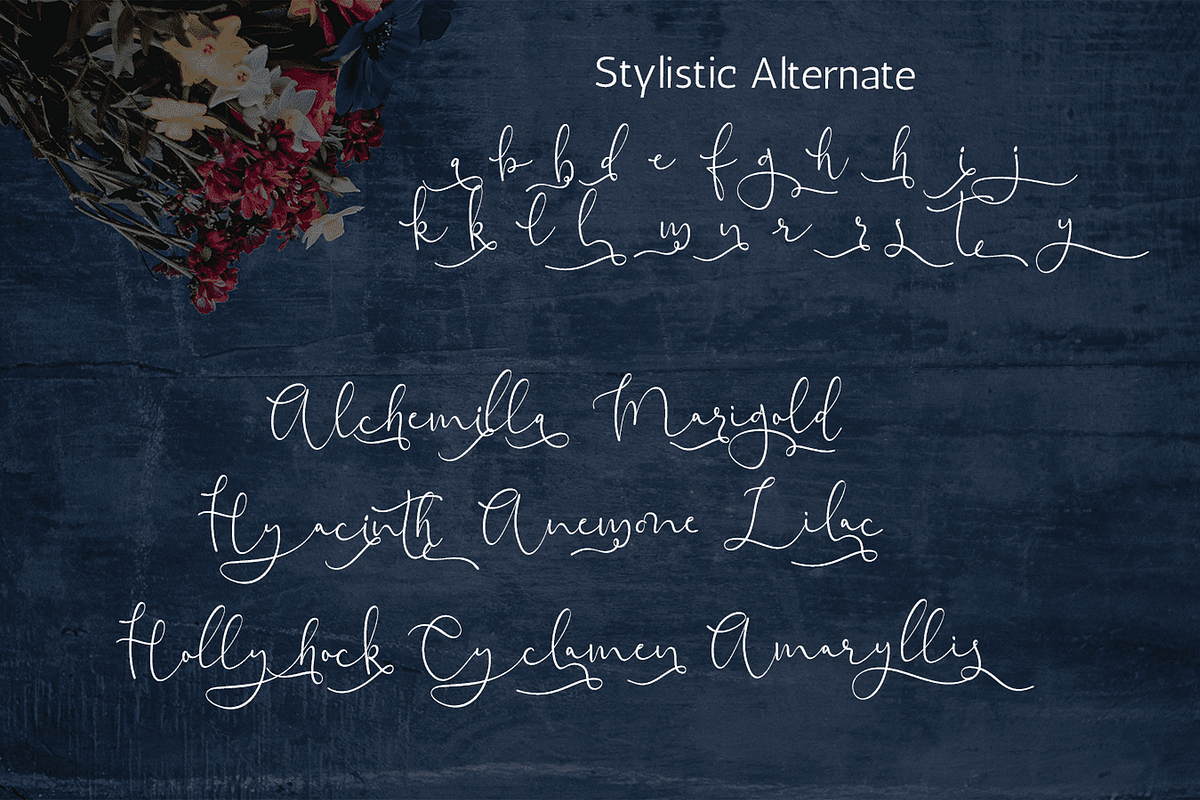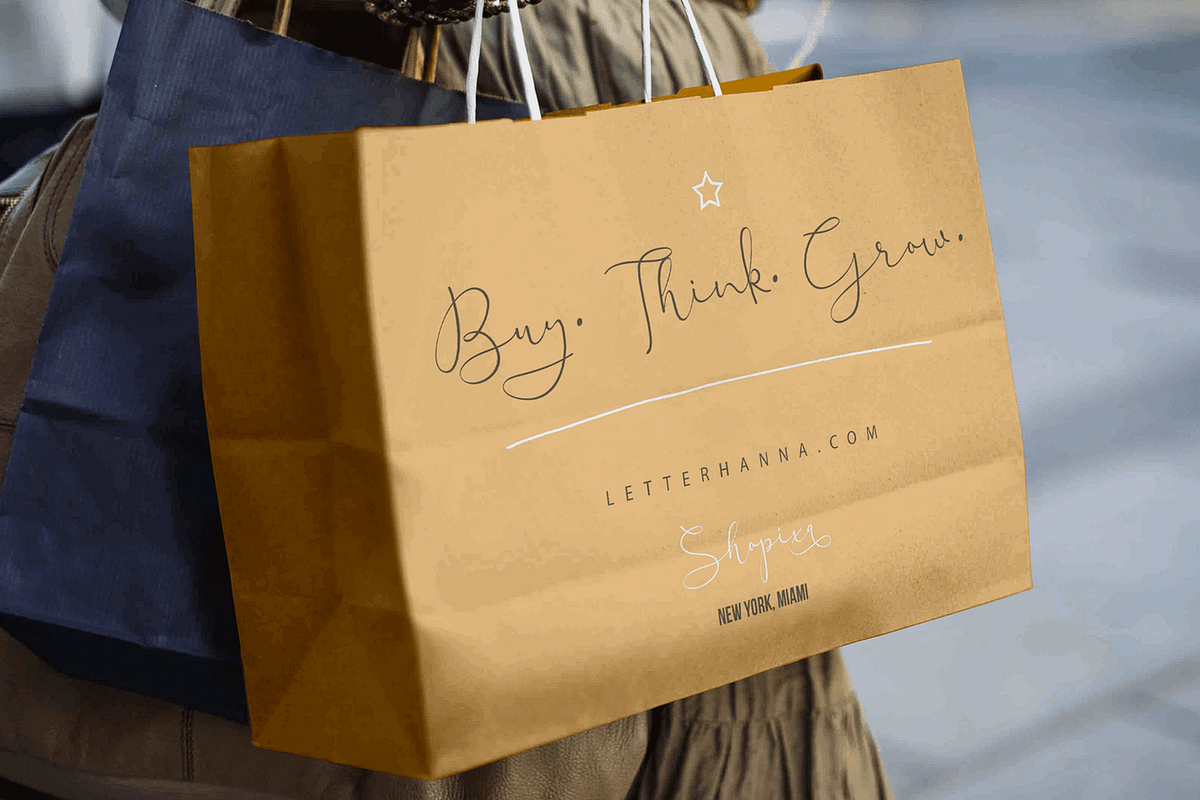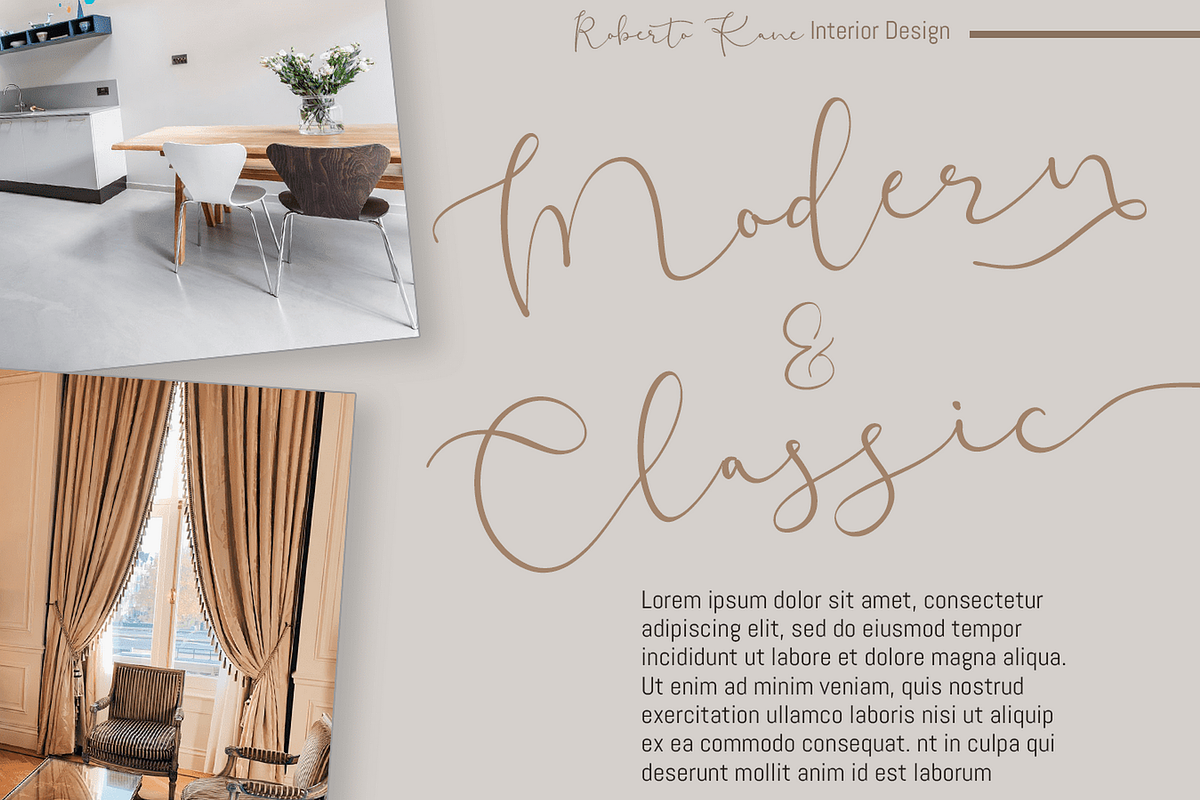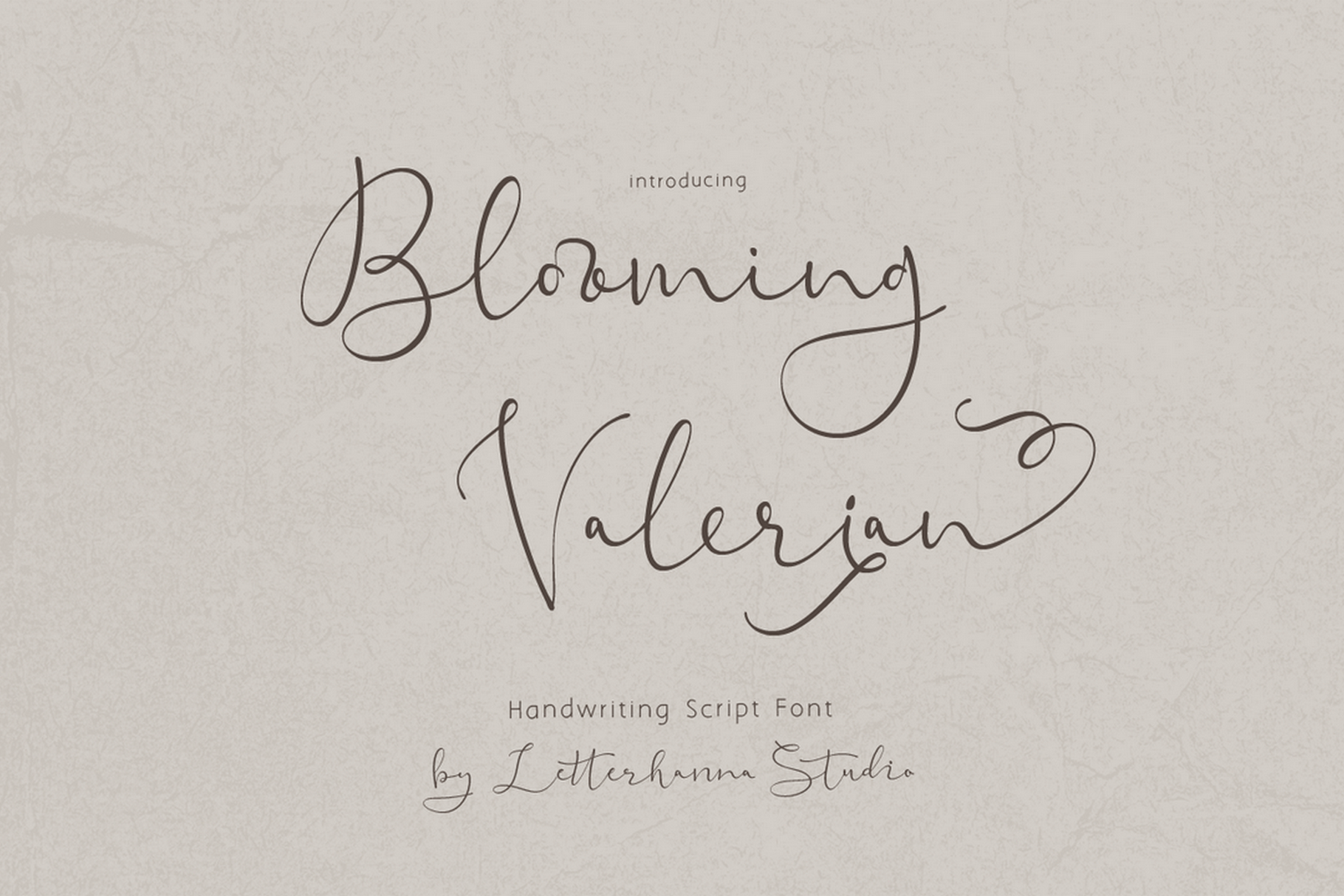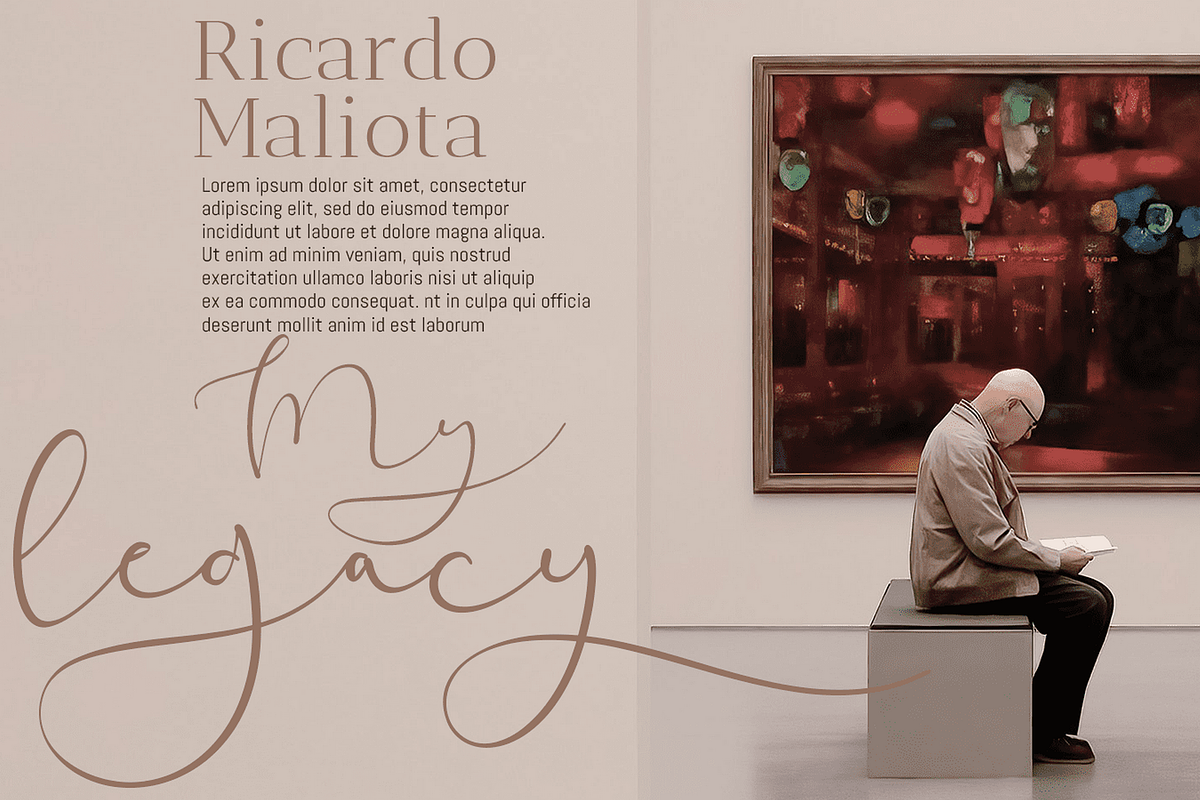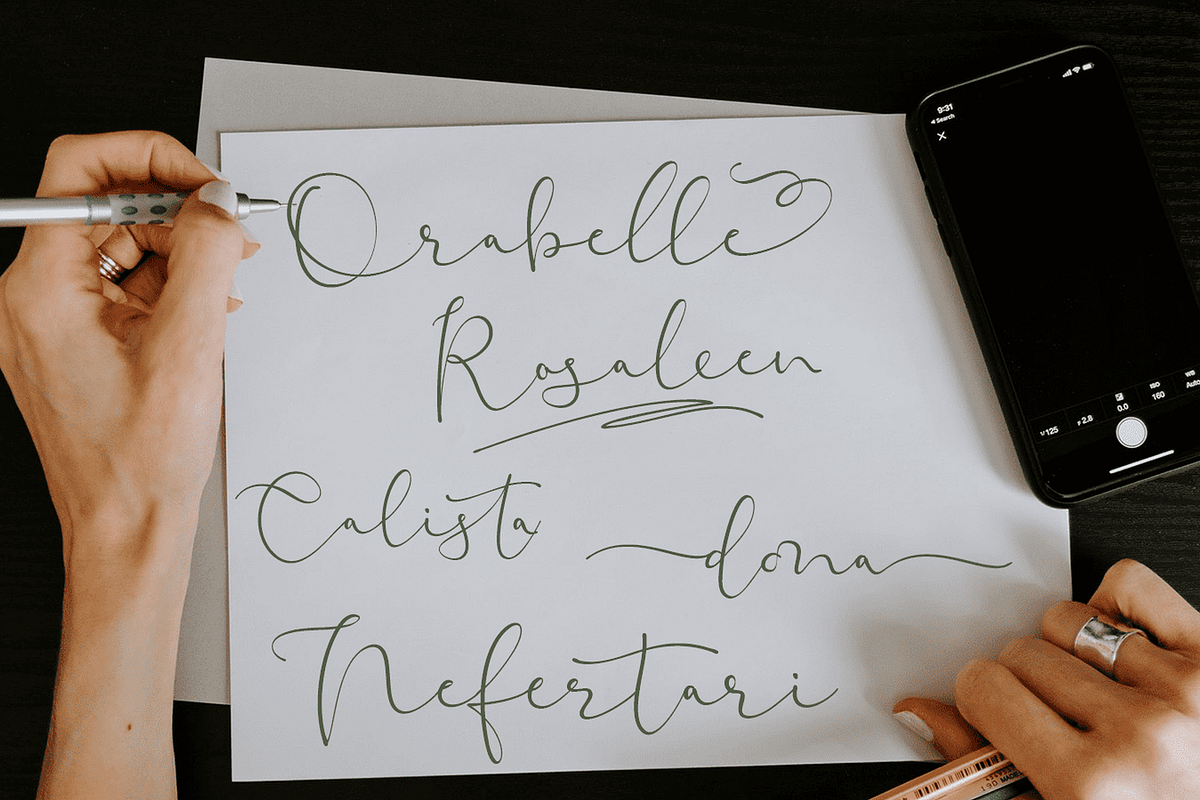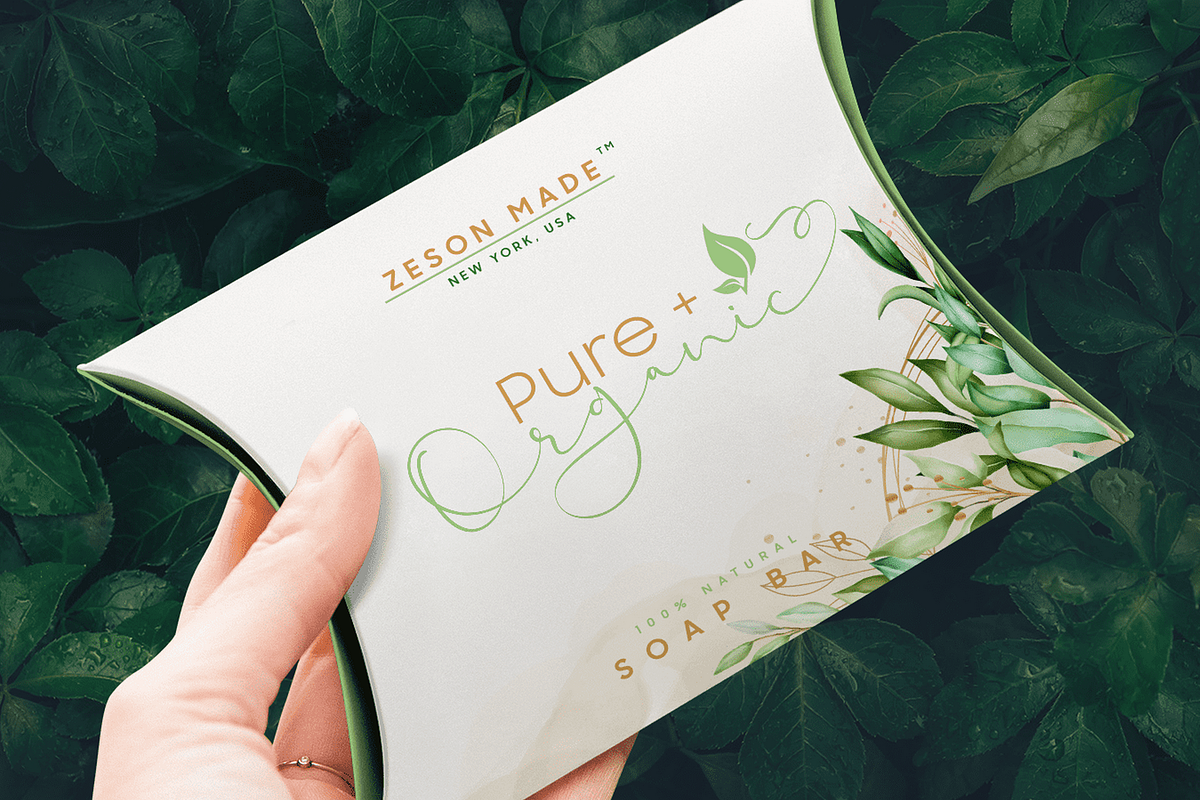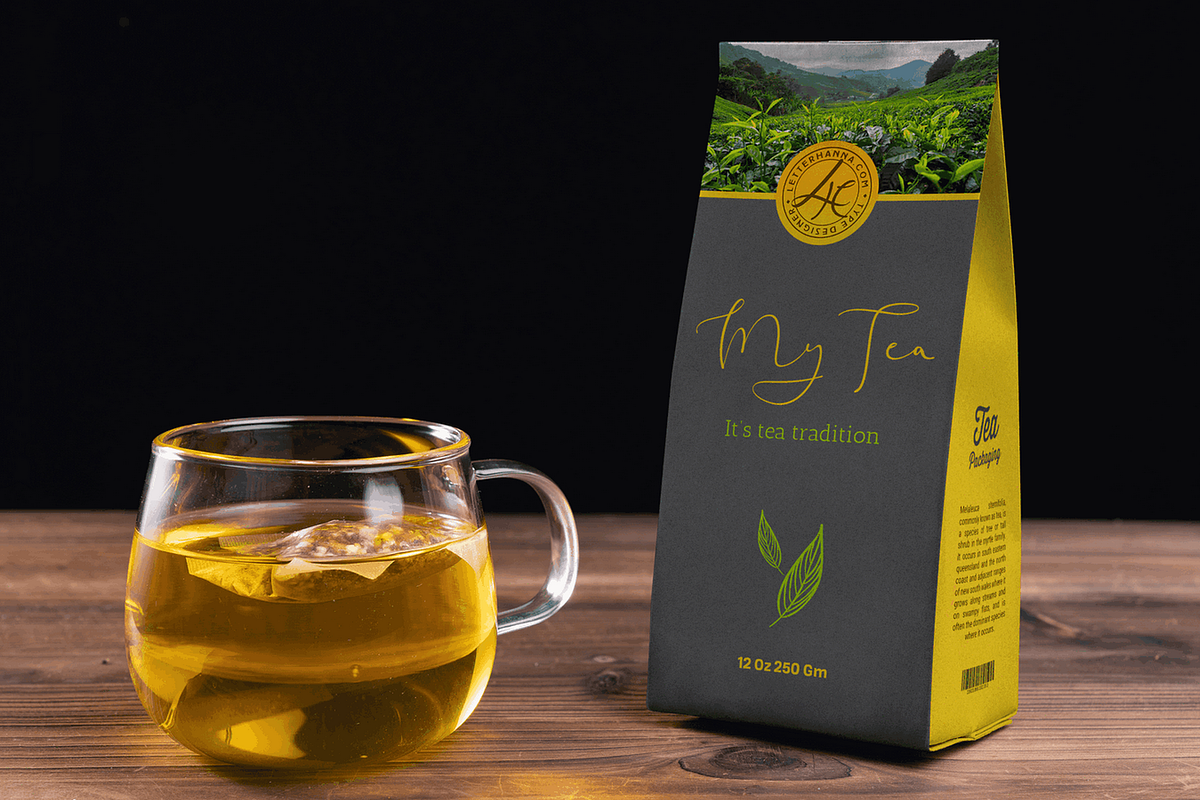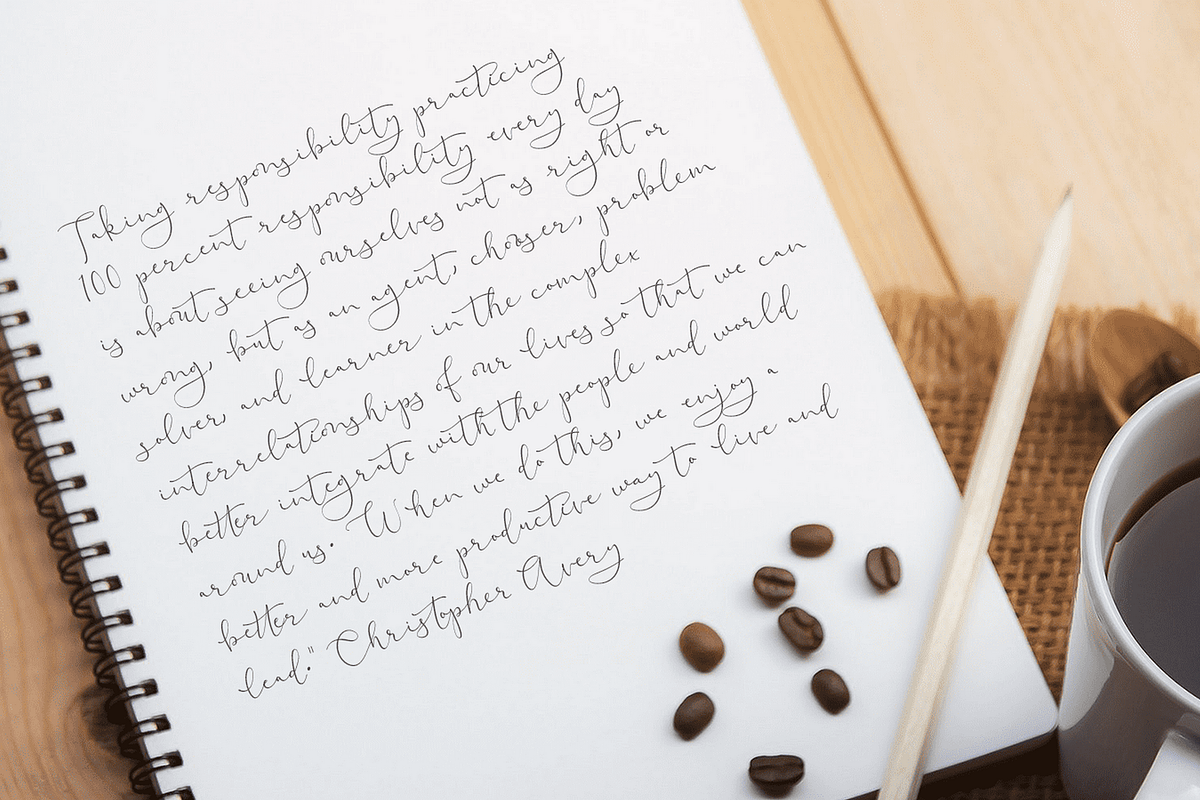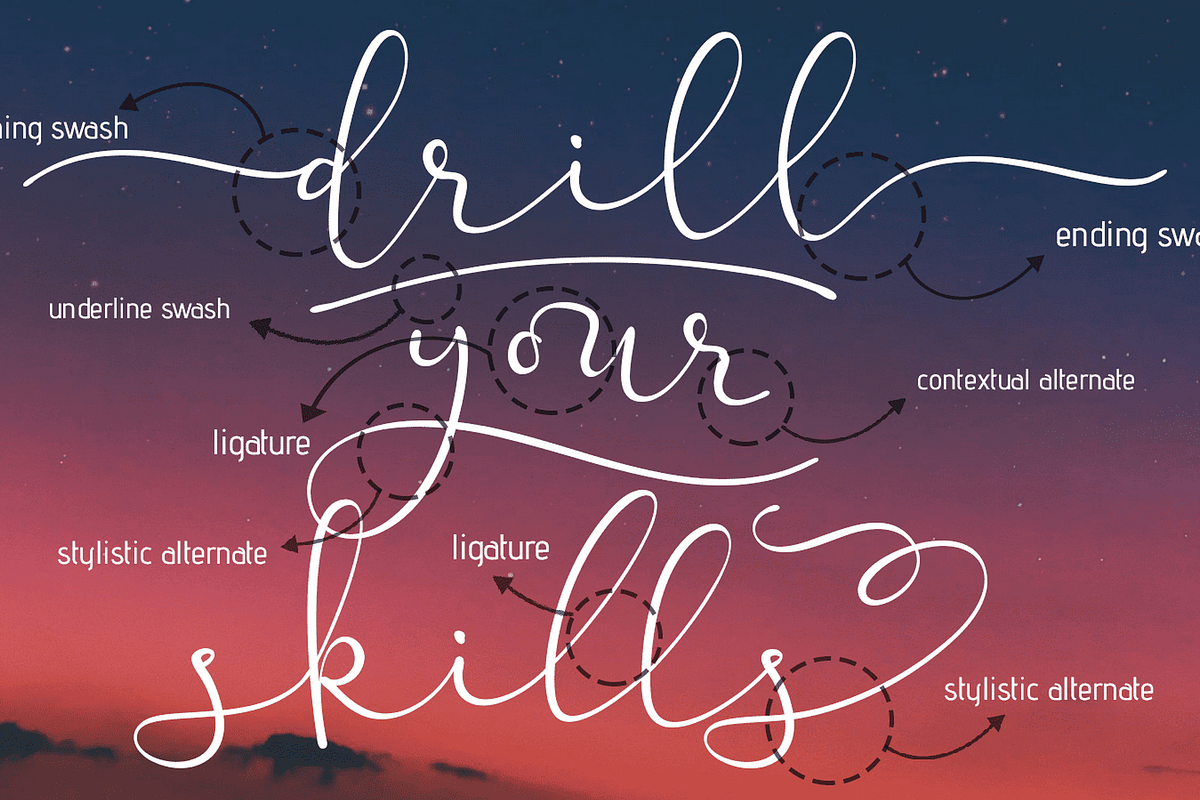
Blooming Valerian Font
Blooming Valerian is a thin handwritten calligraphy font with beautiful curves, the slightly wide spacing makes this font look very elegant. Blooming Valerian is a romantic and sweet calligraphy typeface with characters that dance along the baseline. It will add a luxury spark to any design project that you wish to create! This font is PUA encoded which means you can access all of the amazing glyphs and ligatures with ease!
Beginning and ending swashes
Underline swashes
Stylistic alternate.